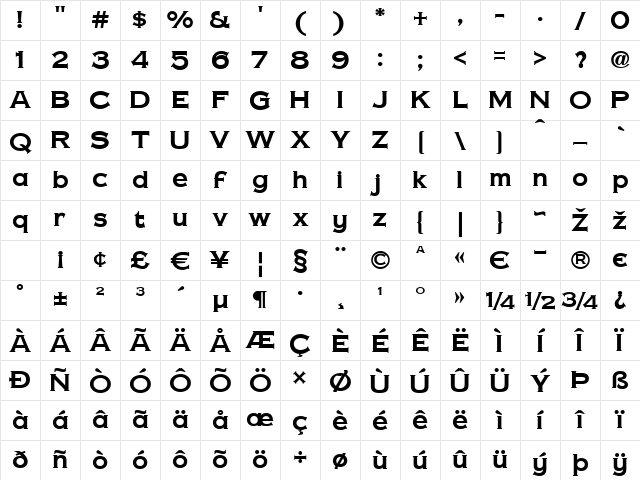
Copper Penny DTP Regular Free Font
Copper Penny DTP Regular
Foundry: The Fontry & JLS
Complete Copper Penny DTP Regular glyph index. Displaying only characters natively supported by Copper Penny DTP Regular font.
Design Context for Copper Penny DTP
Copper Penny DTP is a composed and adaptable typeface that performs quietly and consistently across a wide range of design contexts.
Who designed the Copper Penny DTP Regular font?